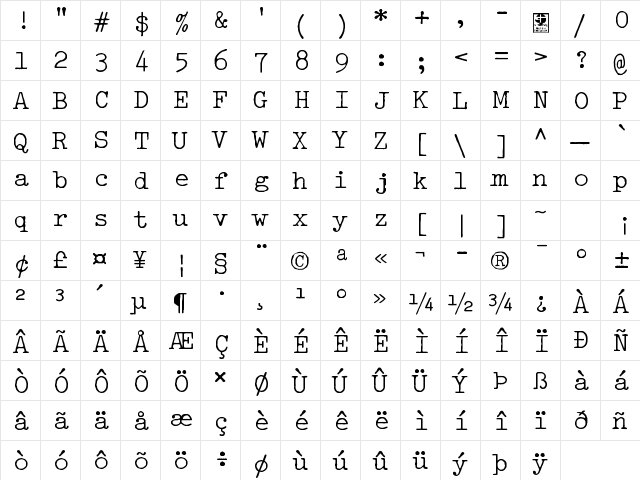
Typo Writer Distressed Demo Regular
Design Context for Typo Writer Distressed Demo Typeface
Typo Writer Distressed Demo embraces imperfection — its rough, textured character adds raw authenticity to designs that want to feel lived-in and unconventional.
A strong fit for alternative music projects, graffiti-adjacent design, and anything that deliberately resists polish.
Pro Tip: Use Typo Writer Distressed Demo at larger sizes where the texture and irregularity of each letterform can be clearly seen — it loses its character at small sizes.